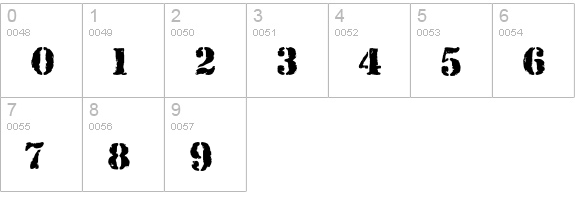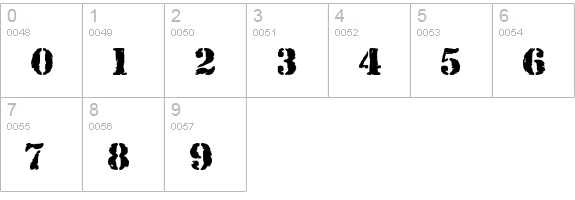
Rubber Stamp Plain font is a unique and eye-catching typeface that exudes a sense of authenticity and vintage charm. Its rugged, stamped appearance gives off a distinct handmade feel, perfect for adding a touch of character to your designs. This versatile font is ideal for a variety of projects, from branding and packaging to posters and invitations. Best of all, Rubber Stamp Plain font is available for free download at FontsMarket.com. With its bold and impactful letterforms, this font is sure to make a statement in your designs. Give your projects a touch of nostalgia and personality with Rubber Stamp Plain font today!